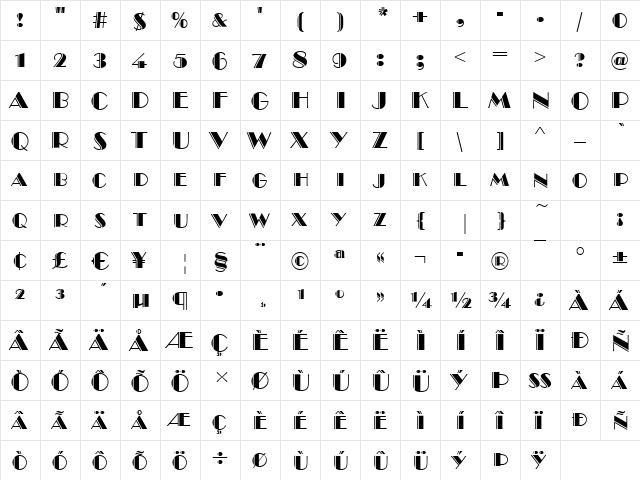
Broadway-Engraved-Caps Regular
Design Context for Broadway-Engraved-Caps Typeface
Broadway-Engraved-Caps is built around its visual character rather than neutral utility — its distinctive forms are designed to make an impression at display sizes.
Font Pairing: Pair with a clean neutral sans-serif for body copy to let Broadway-Engraved-Caps's character lead without overwhelming the composition.
Pro Tip: Use Broadway-Engraved-Caps exclusively at display sizes — it was designed to be seen, not read at length. Let a neutral companion handle body copy.